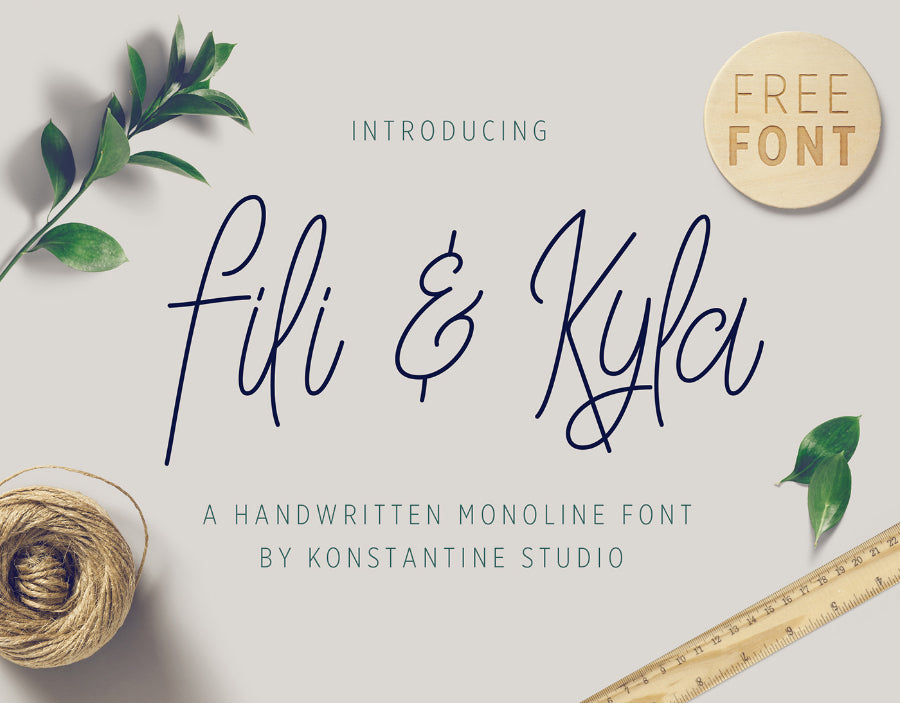
Free Fili and Kyla Monoline Font
Free fili and kyla monoline font for any designer that is looking to display their design professionally. Free Design Resources has created this amazing and beautiful typeface. You can create a professional designs with this beautiful font.